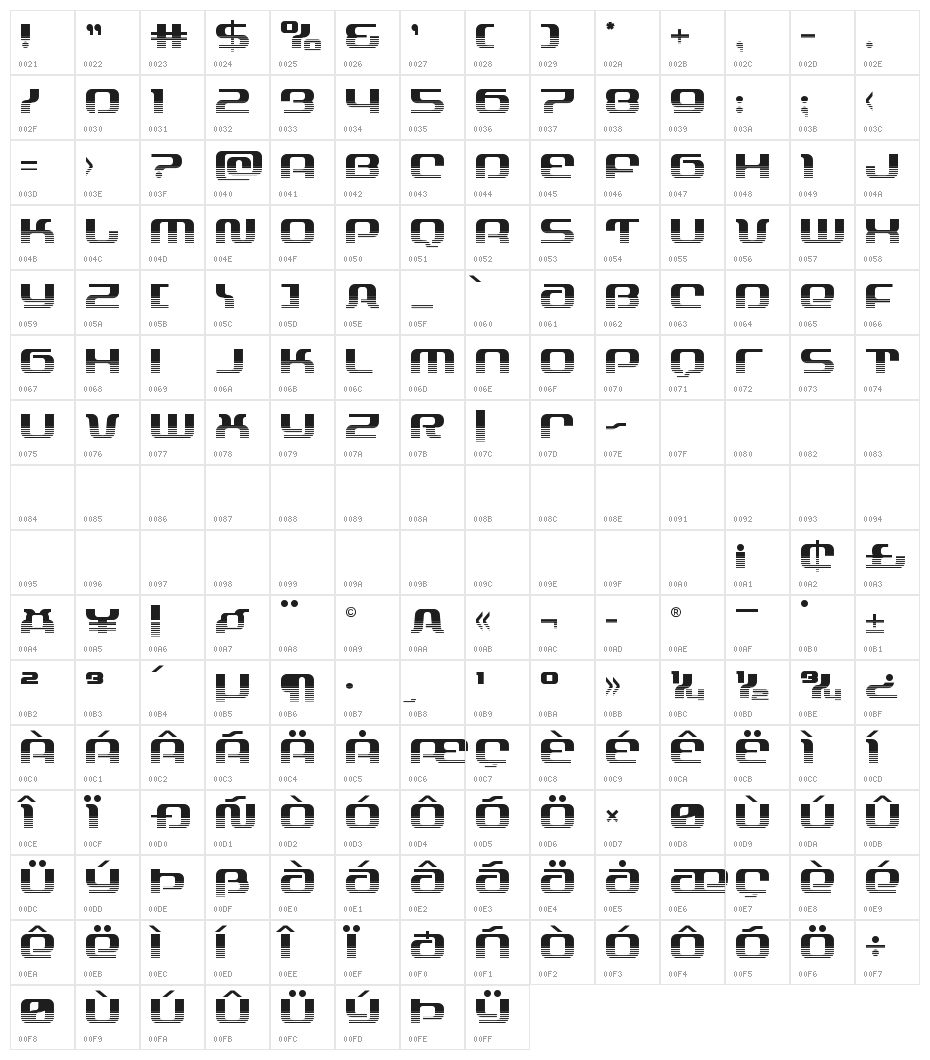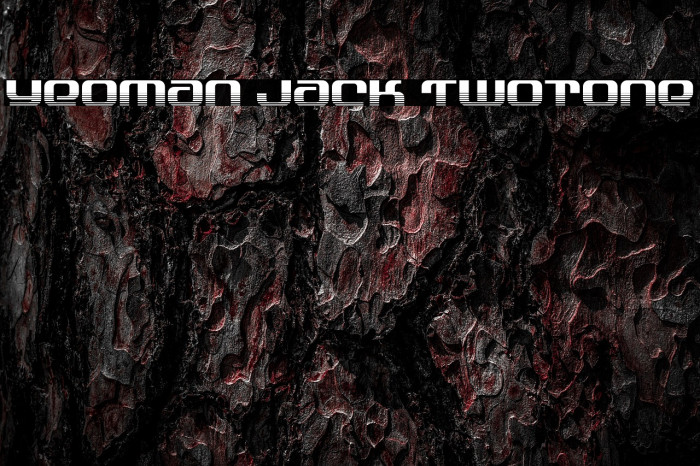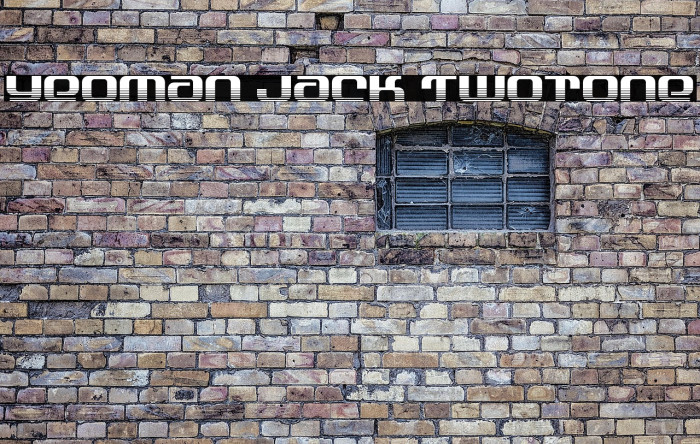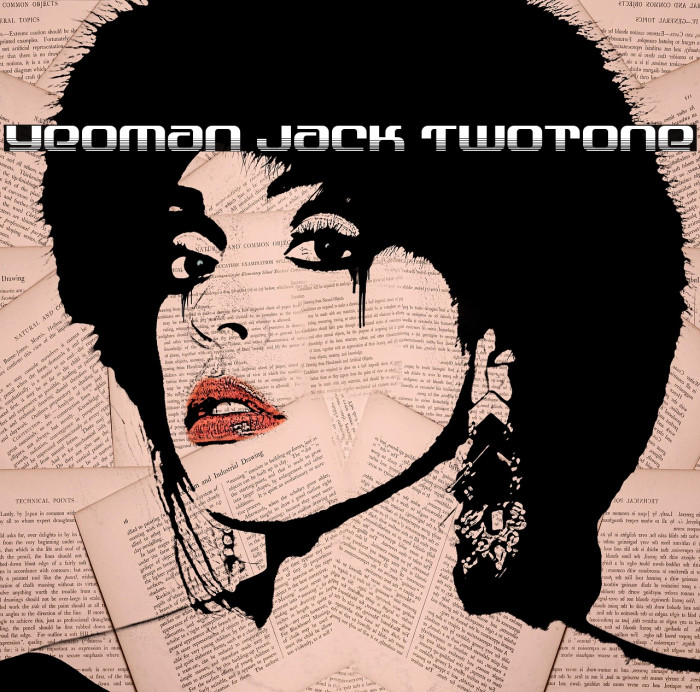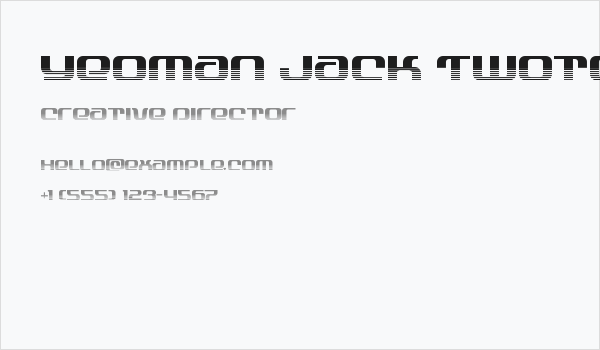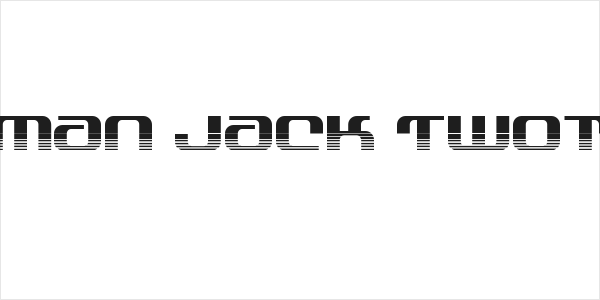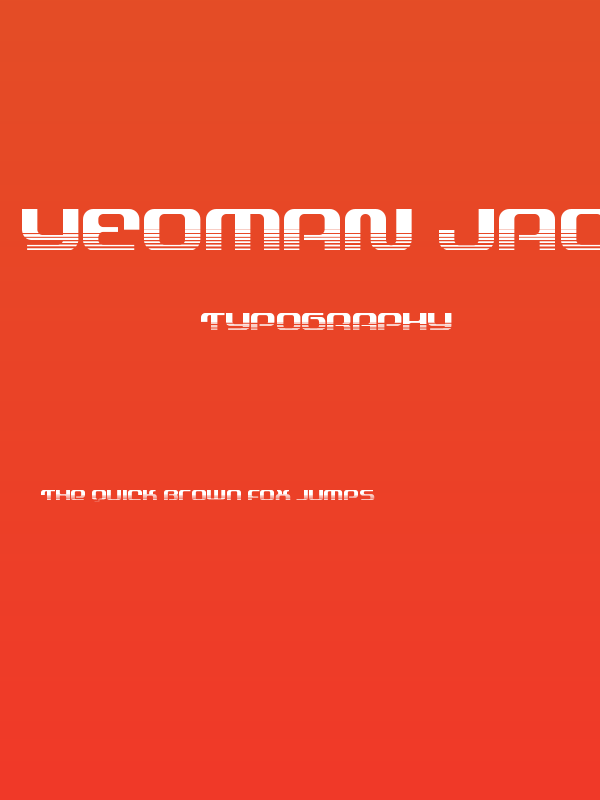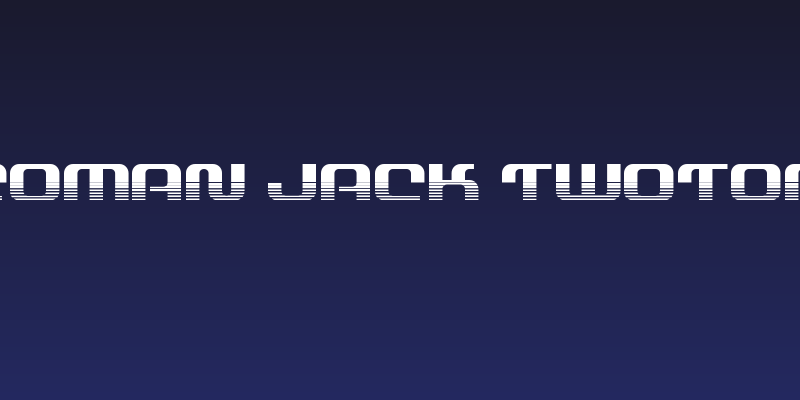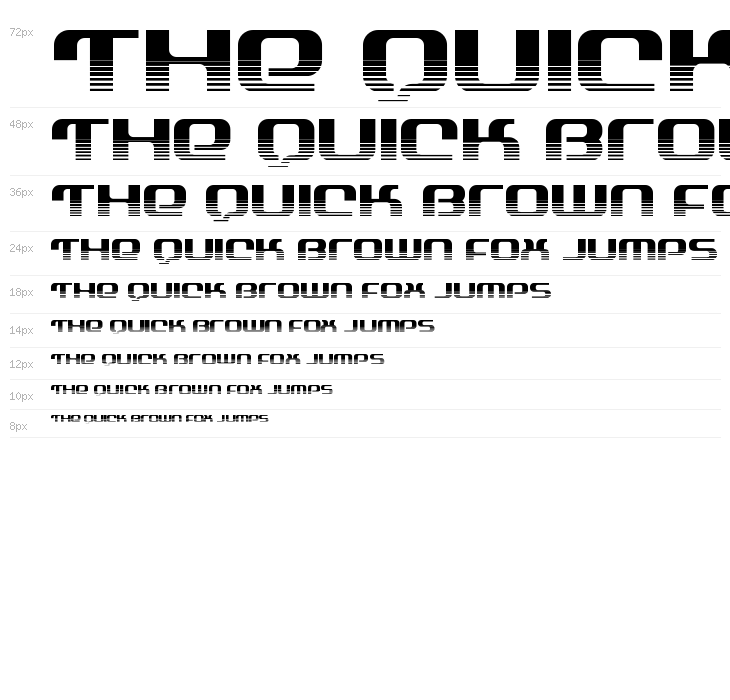
Yeoman Jack Twotone Font
Yeoman Jack Twotone Description
This font features a unique two-tone design with horizontal stripes running through each character, creating a visually striking effect. The characters are bold and geometric, with a futuristic and modern aesthetic. The uppercase and lowercase letters maintain a consistent style, with rounded edges and a uniform width. Numbers and special characters are designed to match the overall theme, providing a cohesive look. The font's distinct appearance makes it ideal for projects that require a bold statement or a modern, tech-inspired feel.
| Proposed Projects | Ideal for tech branding, futuristic posters, digital art, and modern advertising campaigns. |